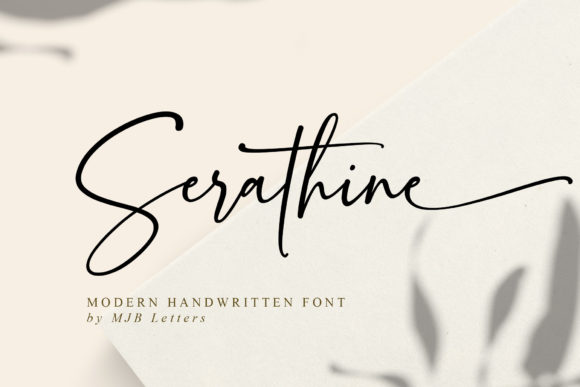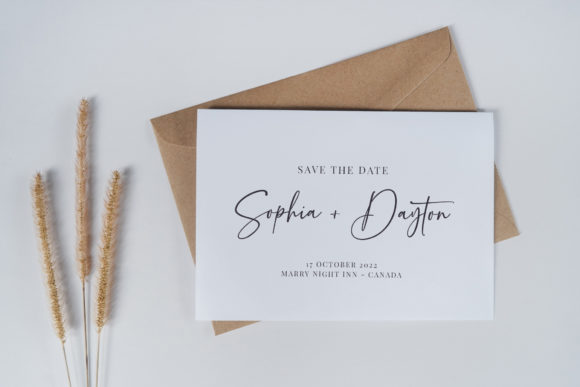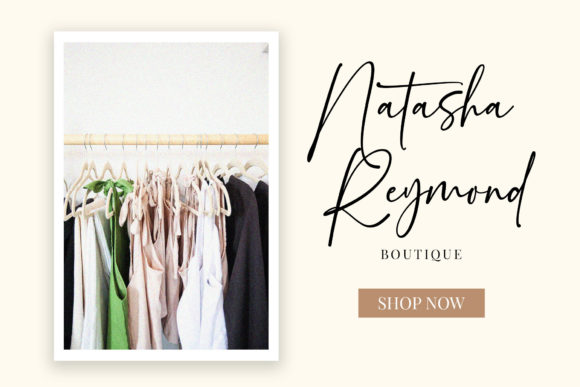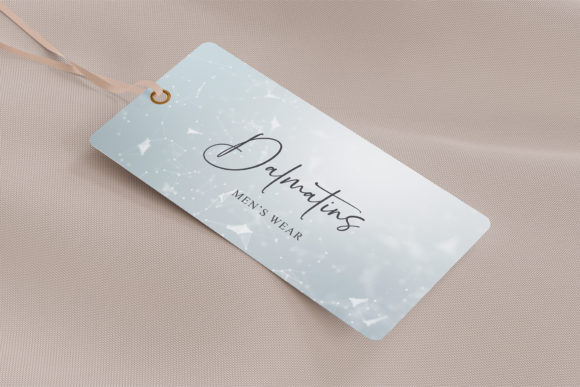
Serathine Font: Elegant Script for Wedding Invitations & Branding
About the Serathine Font
Presenting Serathine Font, a unique and stylish typeface that will make your work stand out. Serathine is a modern handwritten script, ideal for wedding stationery, logo design, watermarks, branding design, websites, social media, marketing, and more! Serathine is PUA encoded which means you can access all of the glyphs and swashes with ease!
Serathine Font Usage Examples
Serathine Font Example